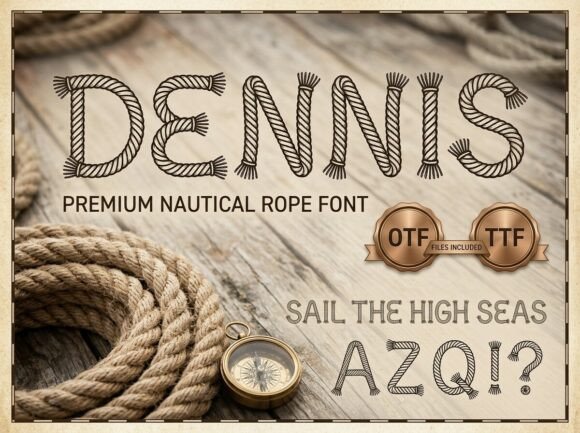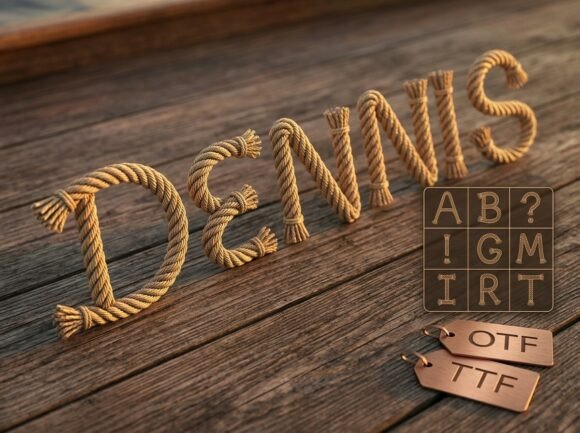
Introduction to Dennis Font
Tie your maritime designs together with Dennis, a premium nautical rope font designed for high-resolution clarity.
This typeface features bold, sans-serif structures wrapped in an intricate twisted-hemp texture, finished with frayed rope terminals Unlike more whimsical scripts, Dennis maintains a structured, legible weight, making it the premier choice for seafood restaurant signage, yacht club identities, maritime safety manuals, and upscale coastal apparel.
Dennis Font offers exceptional quality and versatility, making it a valuable addition to your design toolkit. Whether you’re creating for personal projects or commercial use, Dennis Font delivers professional results.